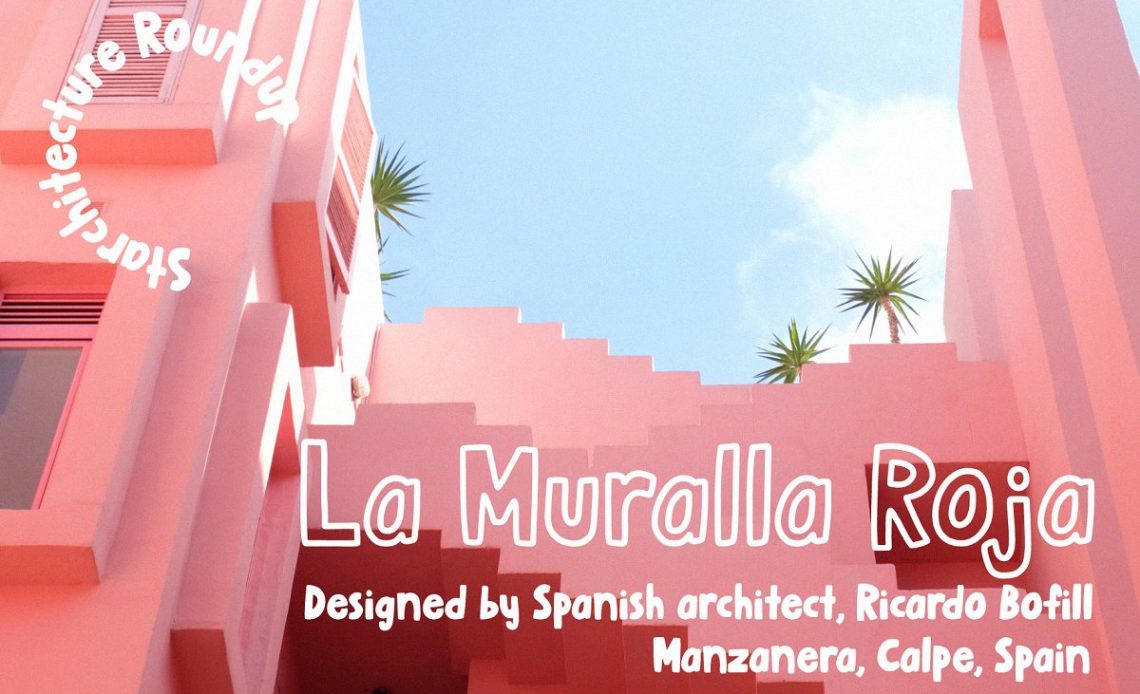
Introducing Stomping Grounds - the ultimate bubble font for all your creative needs! Created by the talented Becky Simpson, this sans serif font is the perfect addition to any editorial header, product design, Instagram announcement, web banner, book cover, logo, or inspiring quote. With its diverse use and zany appeal, Stomping Grounds is sure to make your designs stand out every time.
What sets Stomping Grounds apart from other fonts is its versatility. It comes in both outline form and filled in, giving you the freedom to style it however you like. And with uppercase and lowercase letters, punctuation, and numbers included, you have all the tools you need to create eye-catching designs.
Stomping Grounds is not just a font, it's a personality. It's hand-lettered, bubbly, and fun - the perfect font for celebrating a happy birthday or any other special occasion. And with its unique name, Stomping Grounds is the perfect home base font for all your design needs.